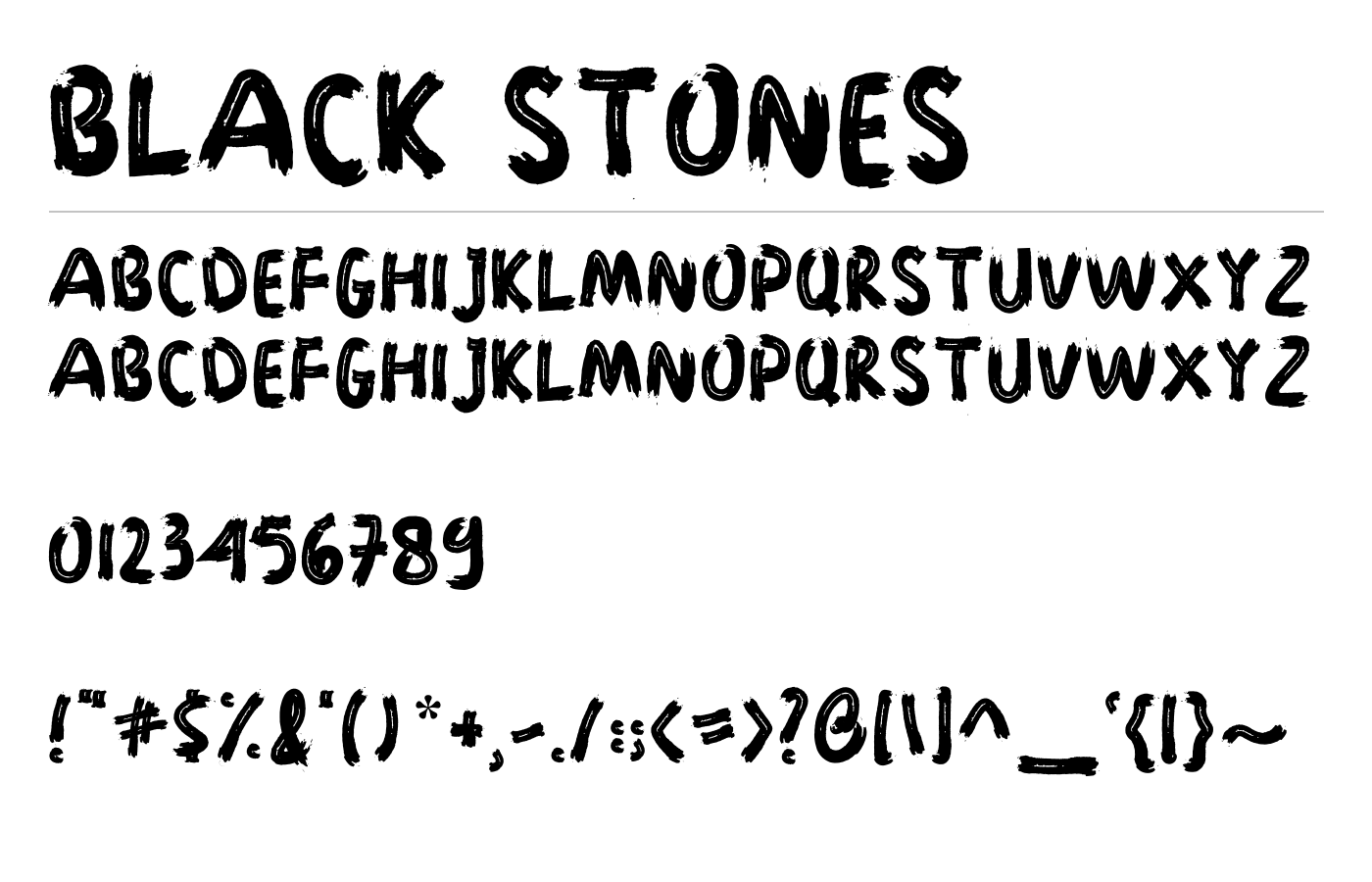
Black Stones is a bold, hand-drawn sans serif font with a rough, textured look that gives it a casual and expressive feel. Its uneven strokes and imperfect edges add a dynamic, artistic vibe, making it ideal for creative, playful designs like posters, logos, and edgy branding. This font works well where a strong, informal, and handcrafted style is desired to catch attention and convey personality.
Black Stones Font
About Black Stones Font
| Font family | Black Stones Font |